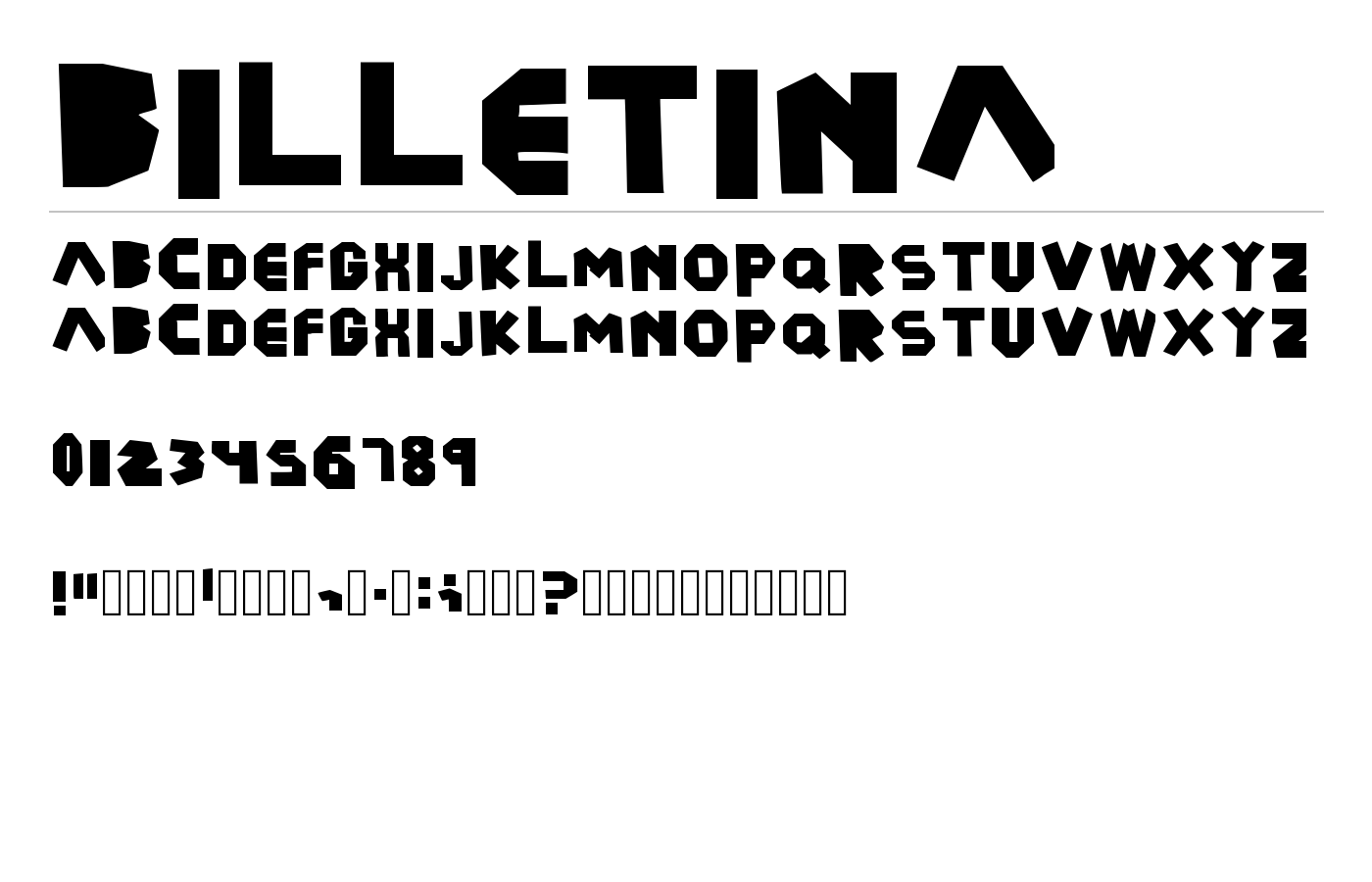
Billetina is a bold, geometric display font with a striking, edgy character that combines sharp angles and chunky shapes. Its all-caps style and high contrast between thick and irregular strokes give it a strong, playful presence, making it ideal for headlines, posters, and branding that seeks a distinctive, modern, and unconventional look. This font works best when you want to make a bold visual statement with a touch of creativity and uniqueness.
Billetina Font